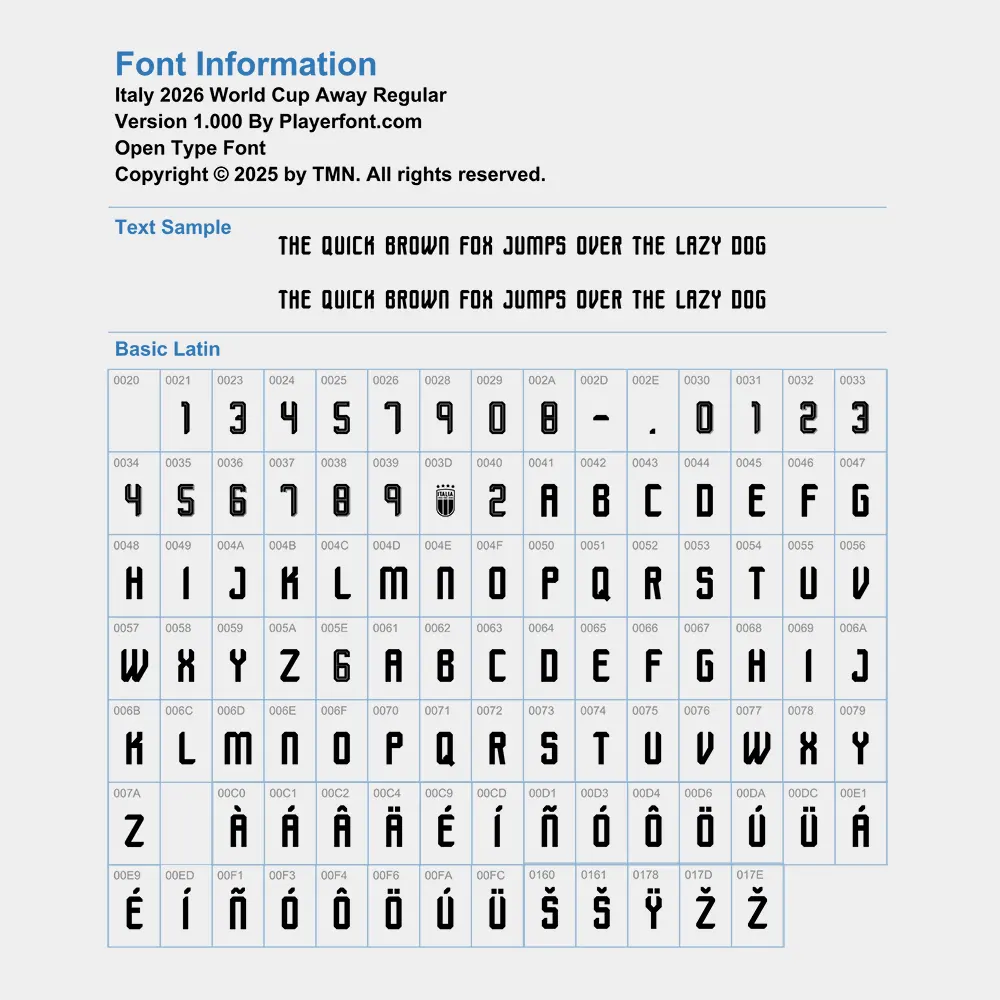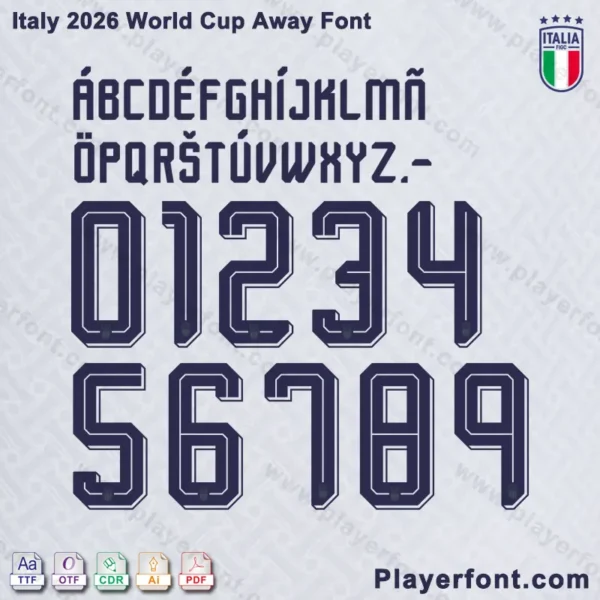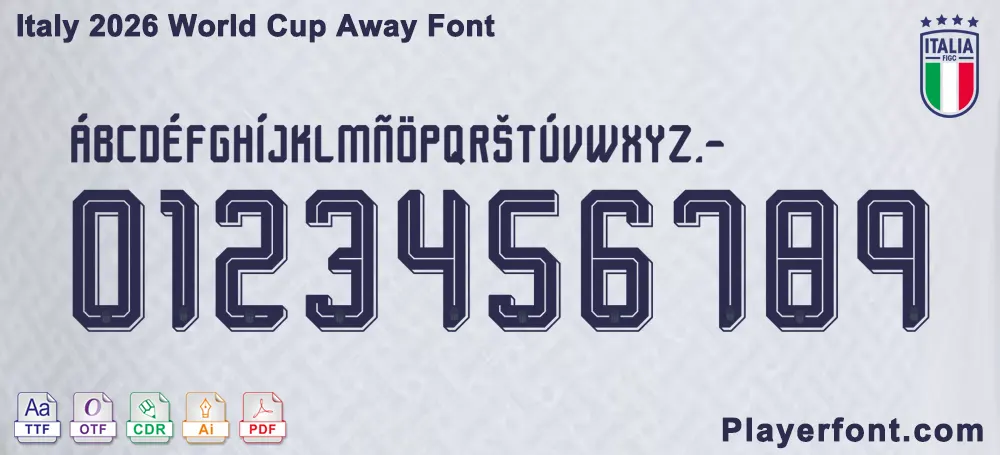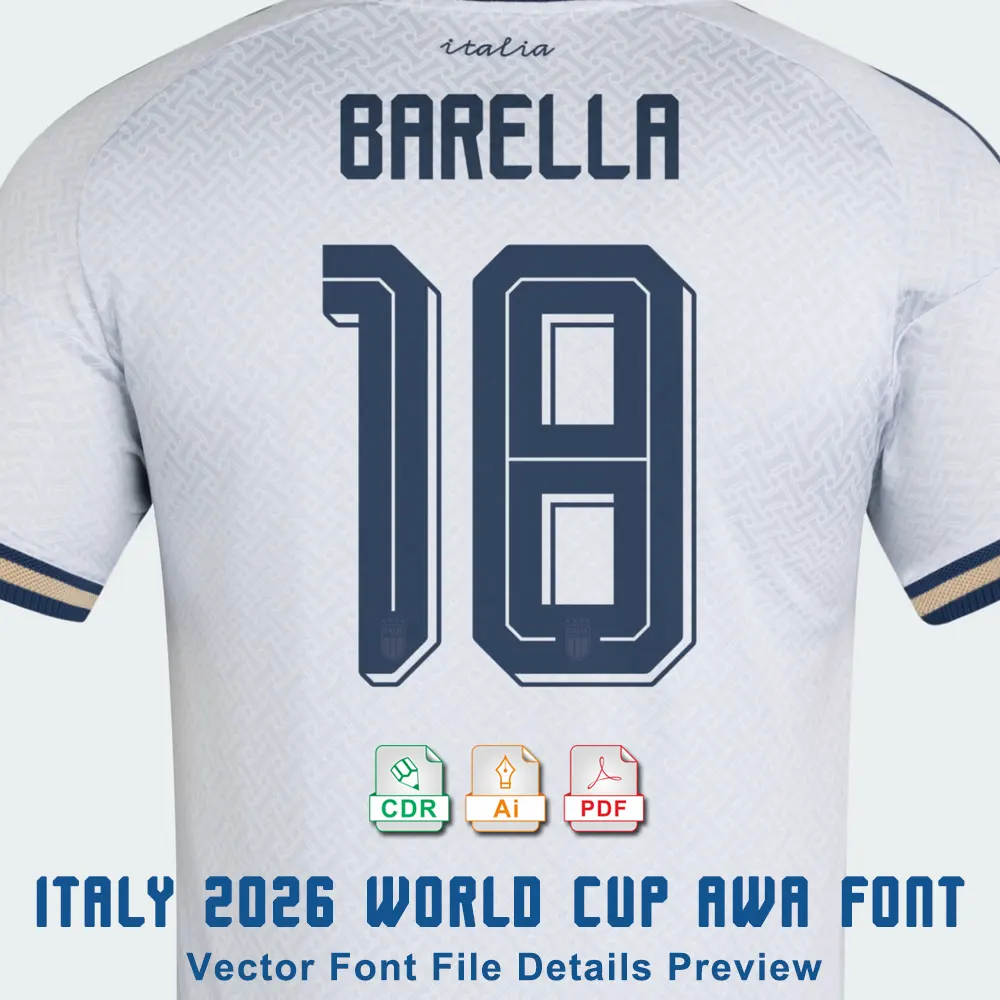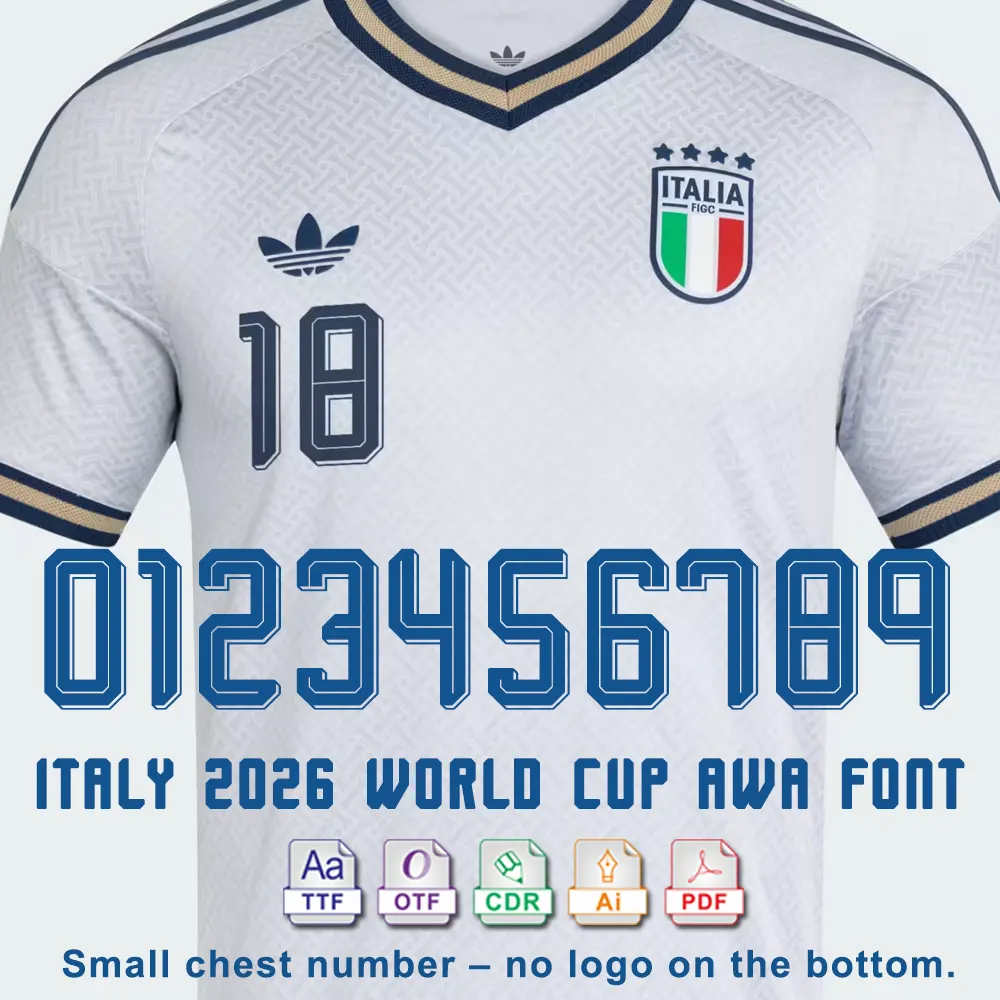
Elevate Your Designs with the Italy 2026 World Cup Away Font Kit
Italy 2026 World Cup Away Font blue 3D numbers 0-9 on light background
Official 3D-effect typography for Italy 2026.
Bring the classic Italian elegance to your designs with the Italy 2026 World Cup Away Font. Characterized by its sophisticated double-line 3D aesthetic and modern block structure, this font is the perfect choice for creating custom jerseys, fan merchandise, and social media graphics.
• Complete Set: Includes uppercase letters, numbers, and specialized Italian accent characters (À, È, É, Í, Ó, Ú).
• Authentic Details: Replicates the exact spacing and “small chest number” style seen on the 2026 away kit.